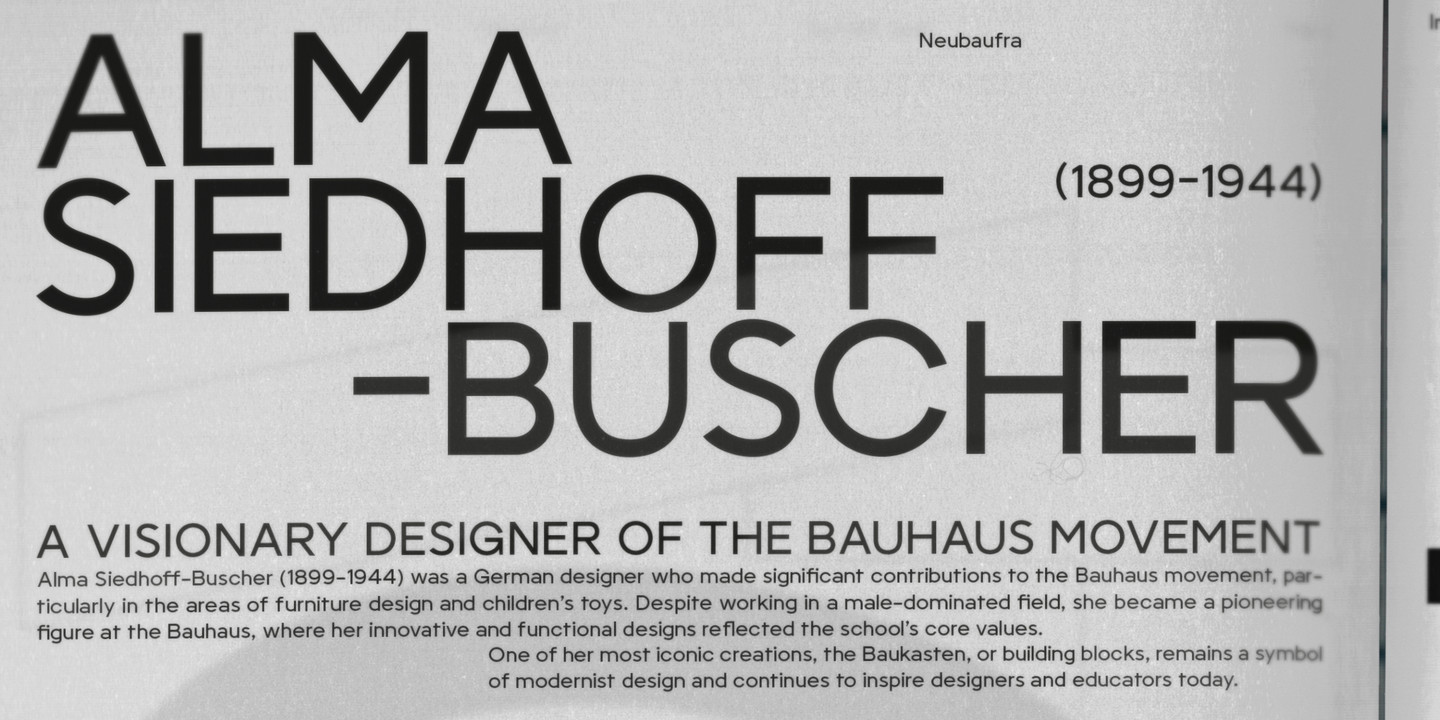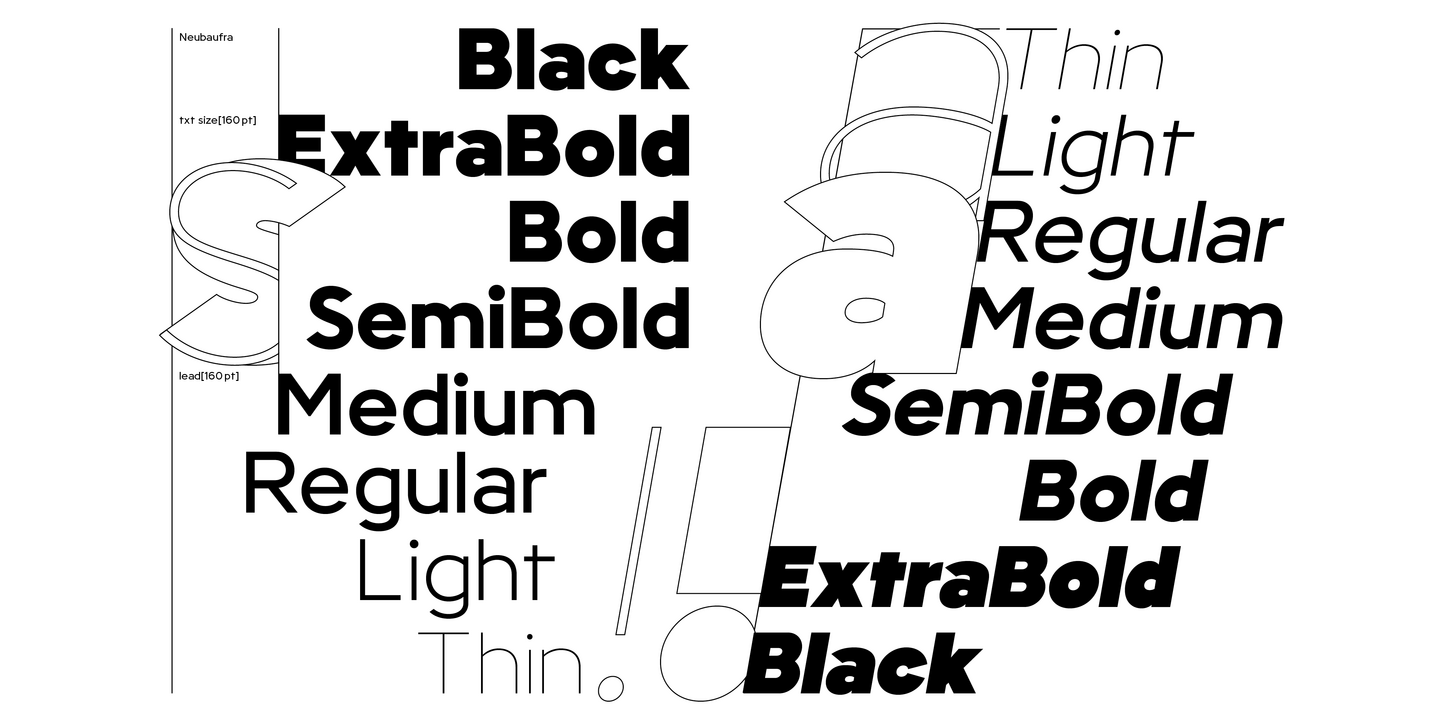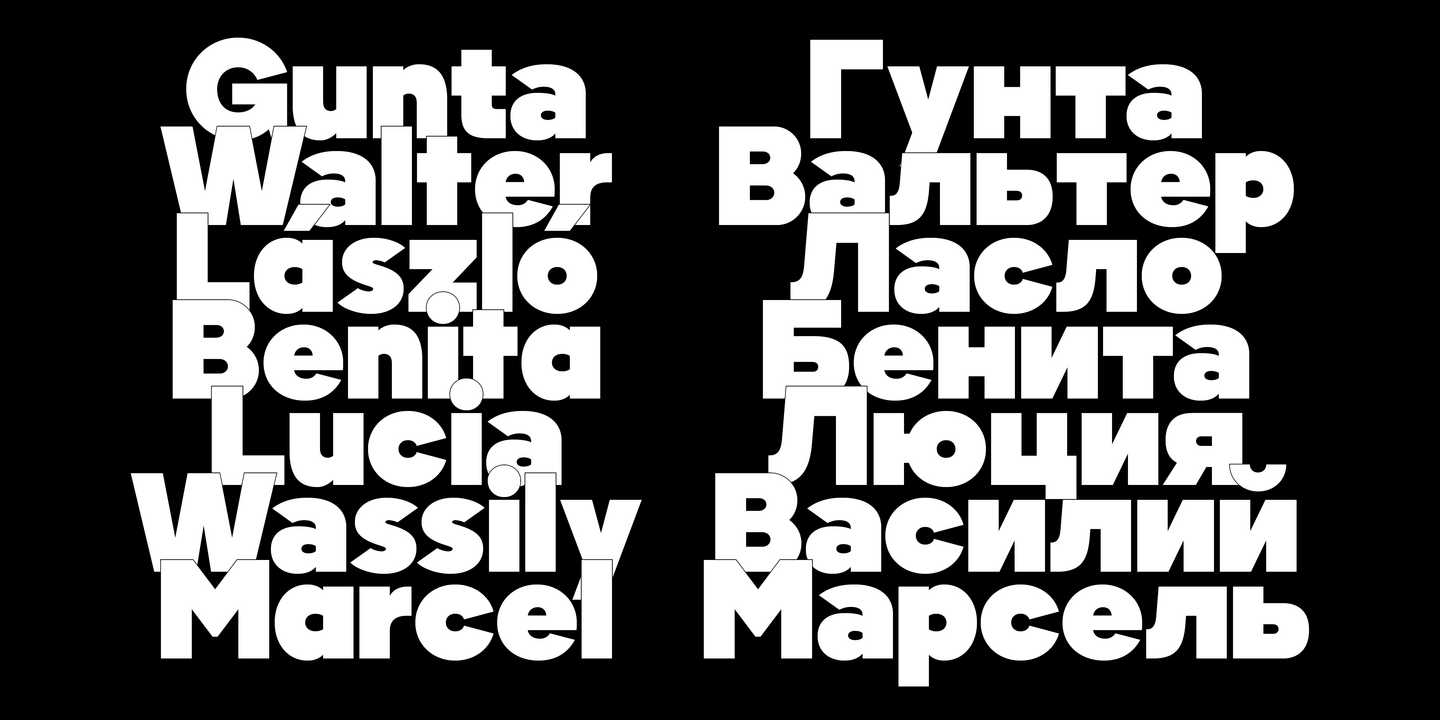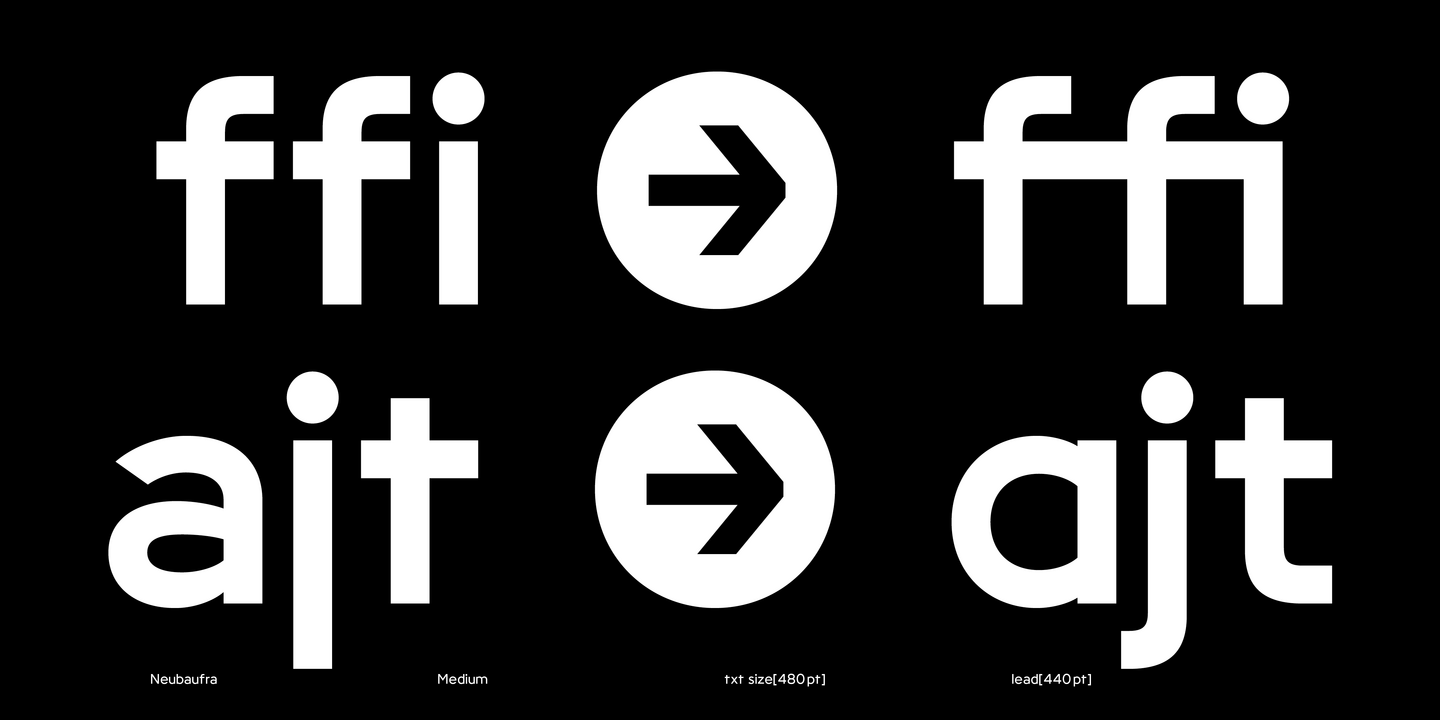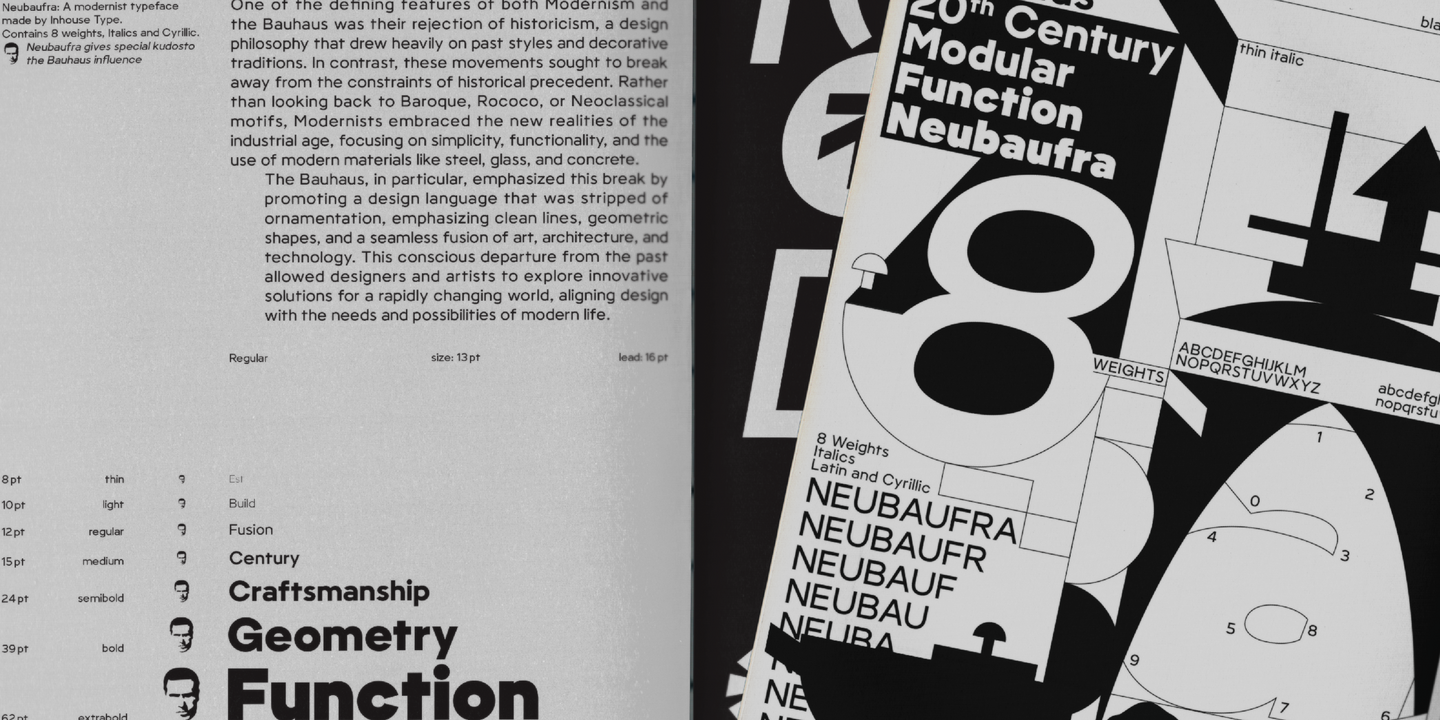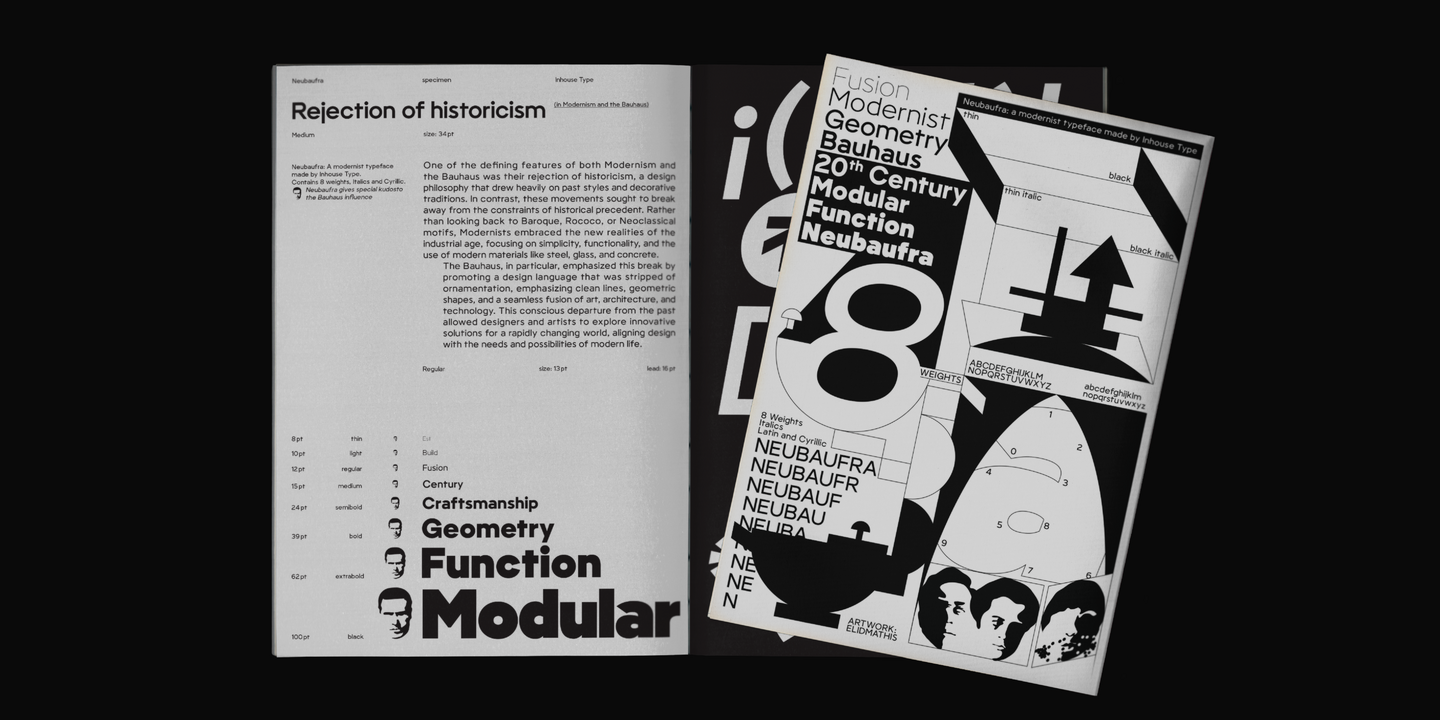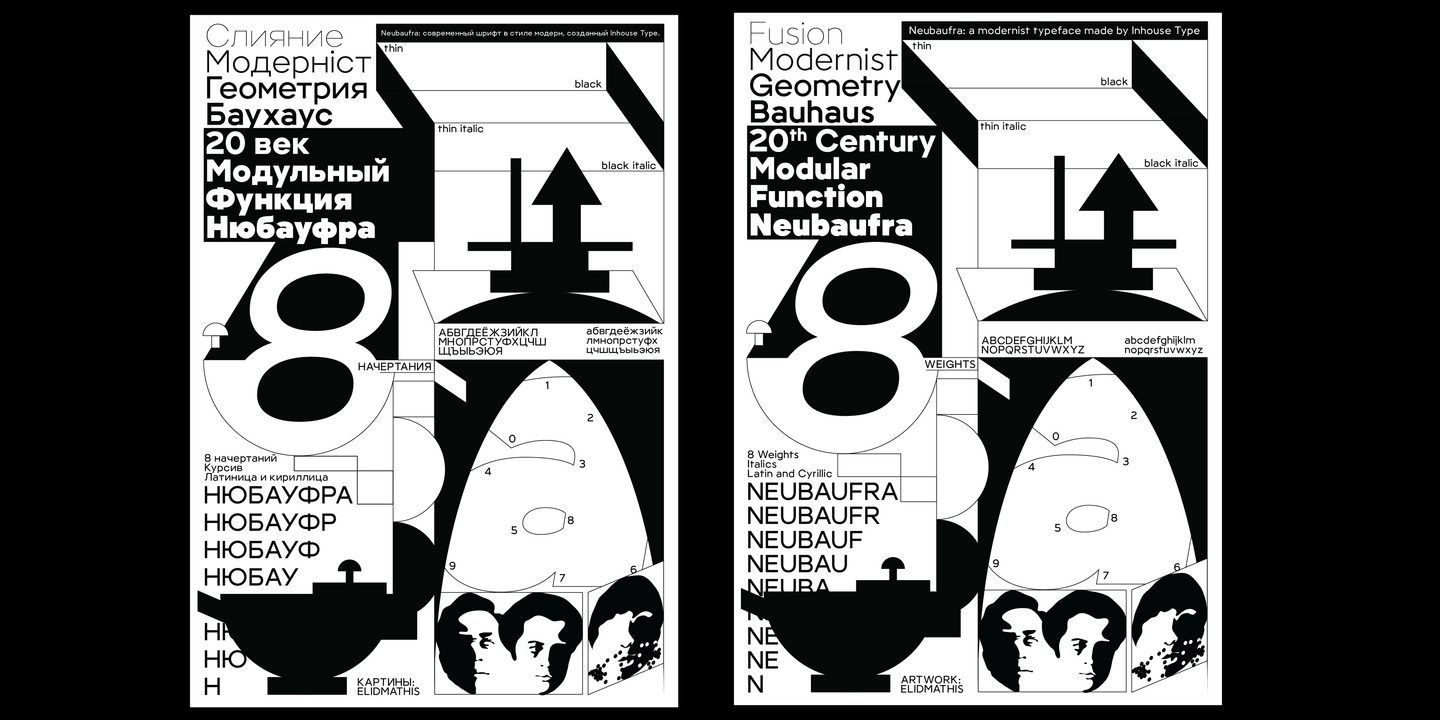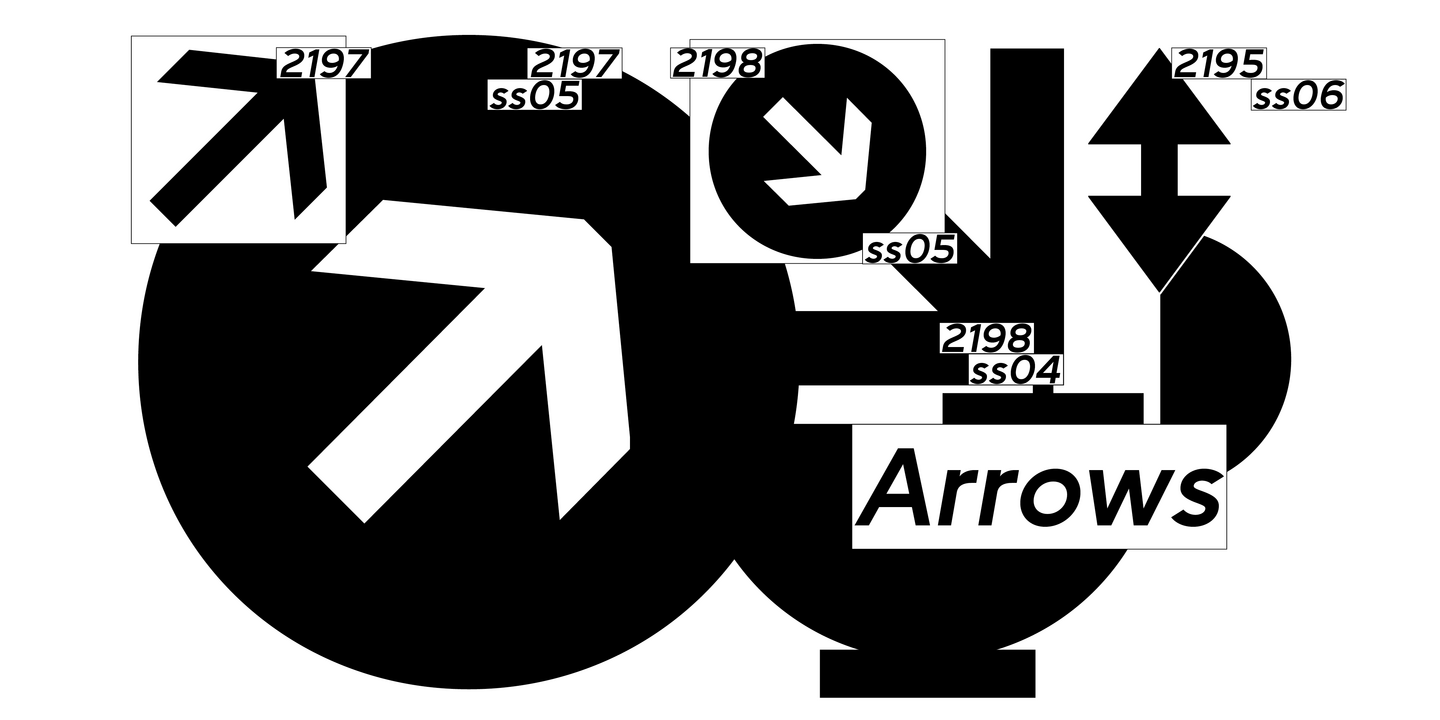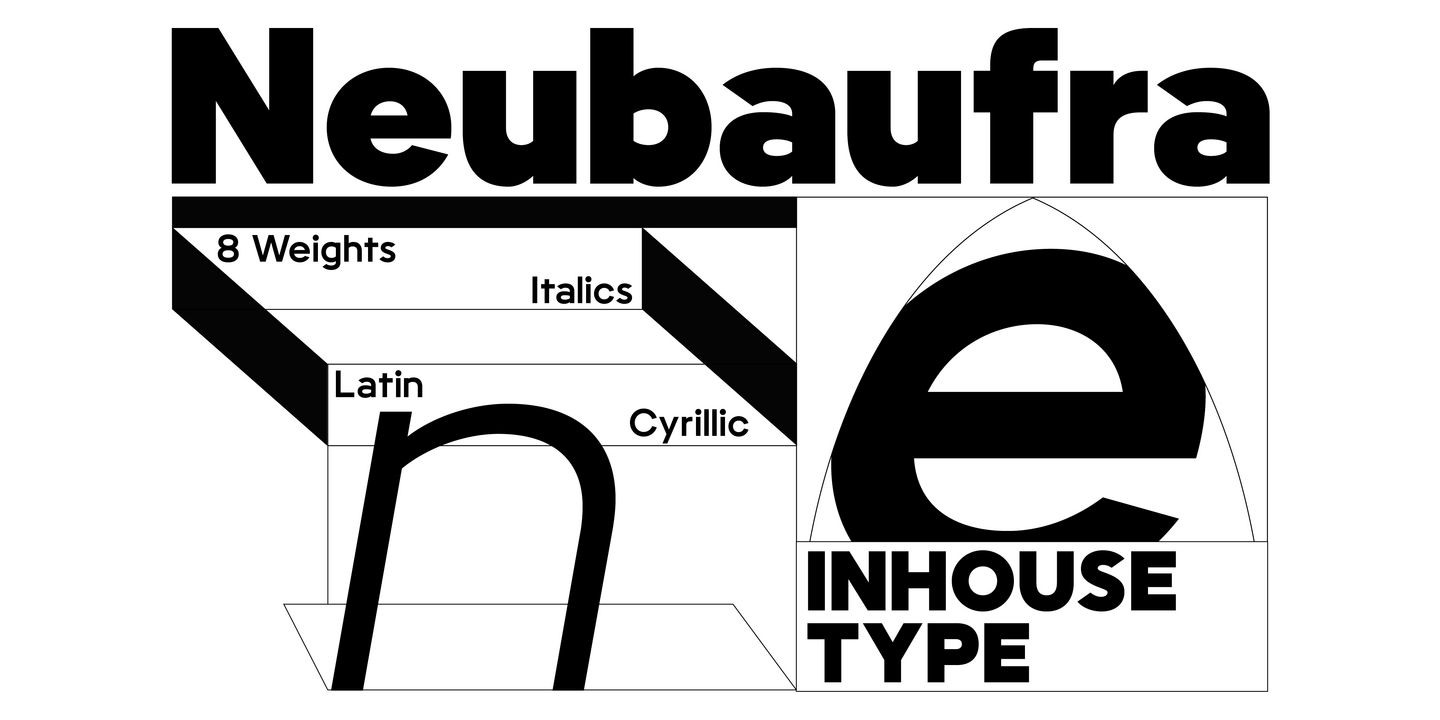
Inhouse Type is a UK-based type foundry dedicated to crafting unique fonts that bring authentic visions to life. We transform ideas into vibrant expressions and lasting impressions. Our mission is to inspire and empower creators worldwide to design with type, while championing positivity, diversity, and sustainability in every aspect of our work.
Neubaufra is a geometric modernist type family. Originally released in 2012 as Baufra, Neubaufra is a considerate restoration of the original work. Inspired by the early 20th century designs, Neubaufra gives special kudos to the Bauhaus influence. Complete with 8 weights + Italics, new design retained its prime modernist characteristics with the improvement to the legibility for text and web use.
Neusa Neu stands as a refined geometric sans serif type family, offering an enhanced iteration of the original Neusa typeface, which was initially designed and released in 2012. Neusa Neu is a versatile and functional typeface suitable for both text and display purposes, whether in print or on the web. The type family offers an extensive selection of weights, widths, and complementary italics, providing a versatile range of typographic choices.
Toroka is a geometric sans serif type family with an extensive selection of styles, from Thin to Black and Condensed to Wide. Functional and highly legible, it has a friendly vibe due to the lack of extending stems on “b”, “d”, “p”, “q”, “u”, and “r”. Its distinctive personality comes across through the rounded apexes of “V”, “W”, “v”, and “w”. Stylised “g” and “y” add sugar and spice. The additional stylistic set offers an eccentric display alternative to the uppercase.
At Inhouse Type, we craft typefaces that give your words, brand, and product a one-of-a-kind voice. A typeface is a cornerstone of creating a distinctive identity and plays a vital role in successful brand building. Whether you’re launching a start-up, refreshing your branding, or unveiling a new Netflix show, choosing the right typeface is key to standing out. With our passion for design and commitment to excellence, we ensure every typeface we create becomes a powerful tool for self-expression and unforgettable storytelling.
Type Designer, Managing Director
Mariya Lish
Mariya is a skilled designer with over a decade of experience in type design. Specialising in Latin and Cyrillic type development, she has worked on a wide variety of projects throughout her career. Originally from Minsk, Belarus, Mariya has lived in the UK for the past 17 years, raising her family in Northumberland. With a strong background in retail typeface design, she also enjoys creating custom fonts tailored to meet her clients’ specific needs.